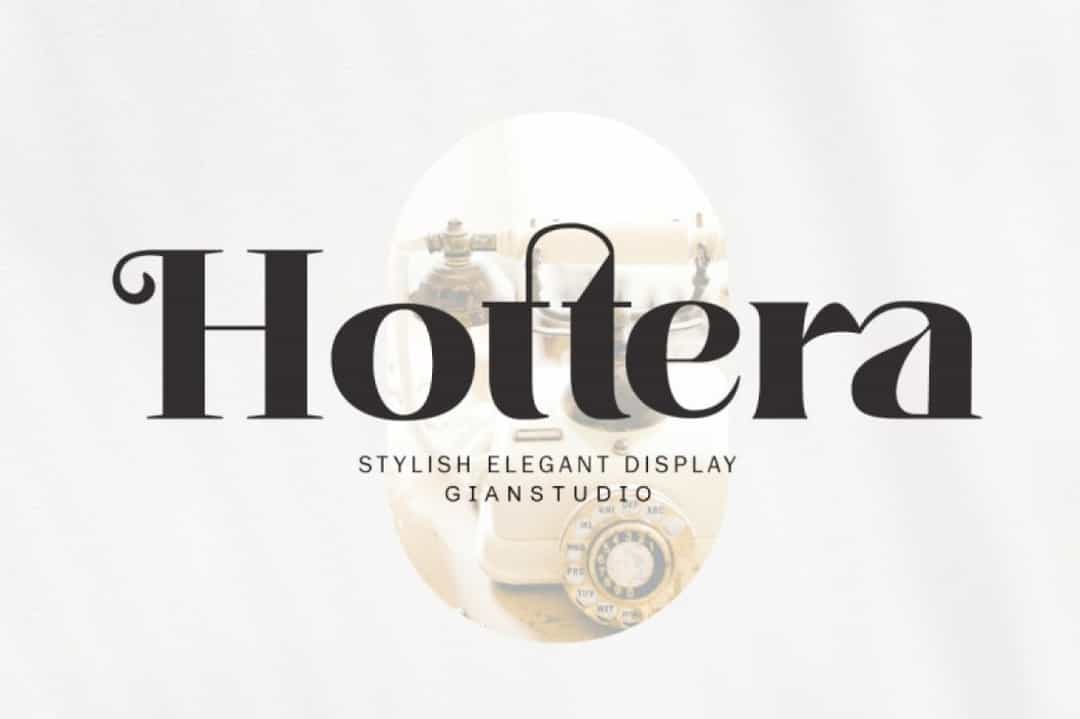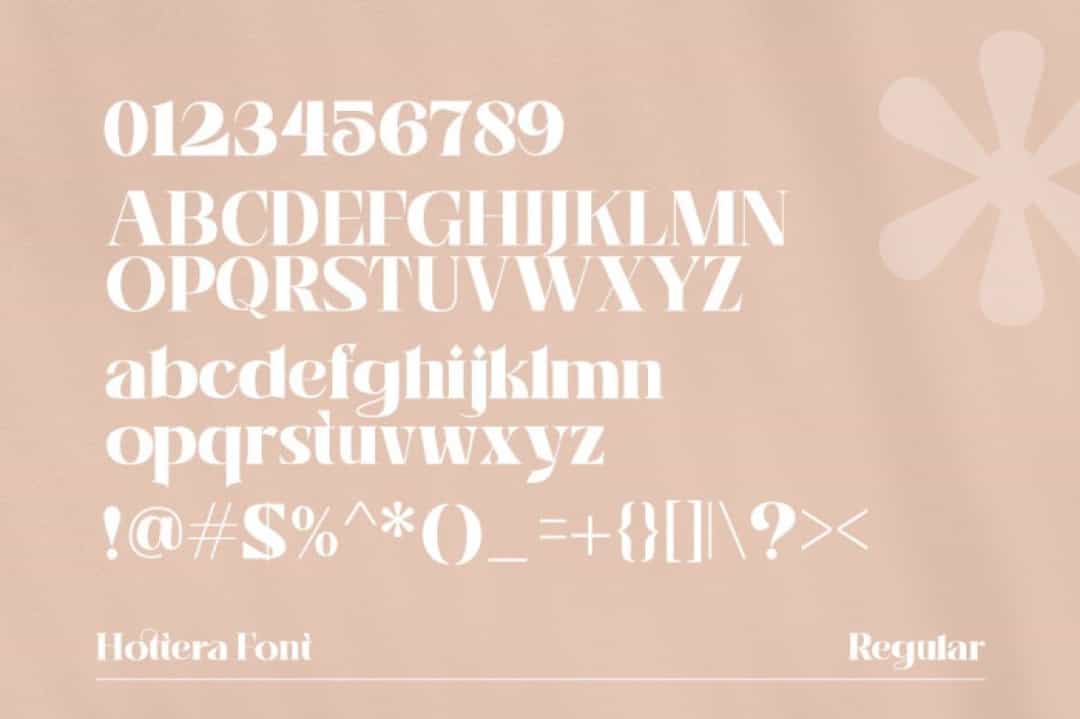
Hottera is an exquisite serif typeface with its own distinctive design and atmosphere, inspired by display serifs of today. The thick, balanced and diverse font is intended to evoke elegance and sophistication; in this example I will demonstrate its potential use; perfect for branding, logotypes, romance cards, wedding invitations packaging retro labels namespelling and much more!